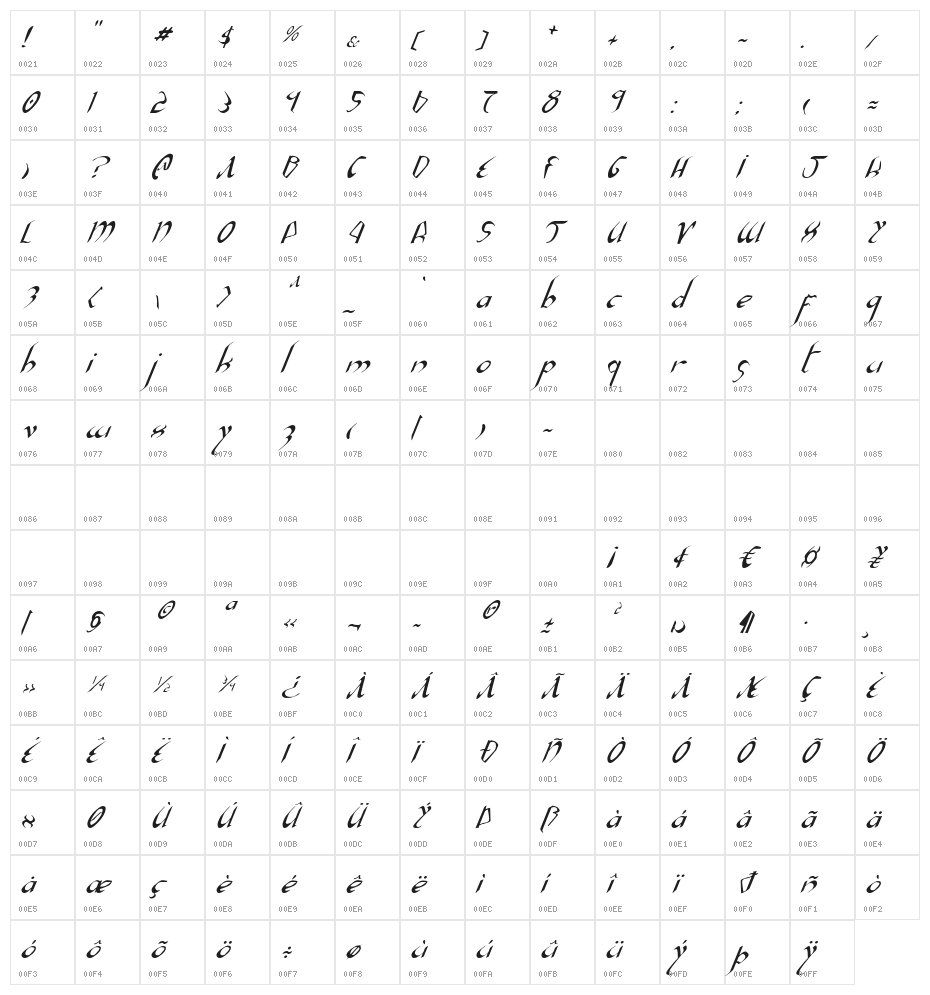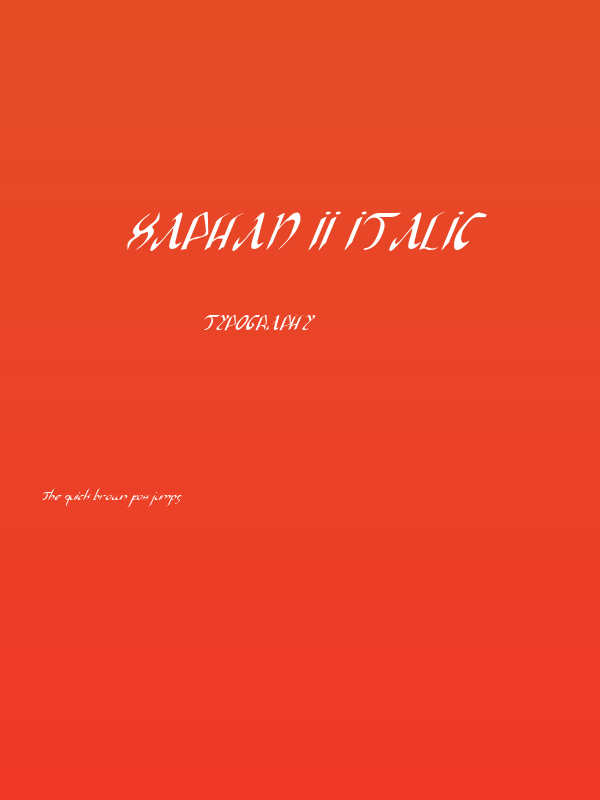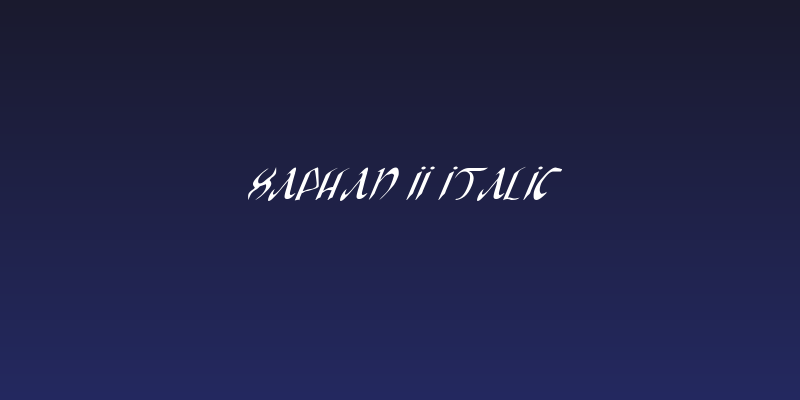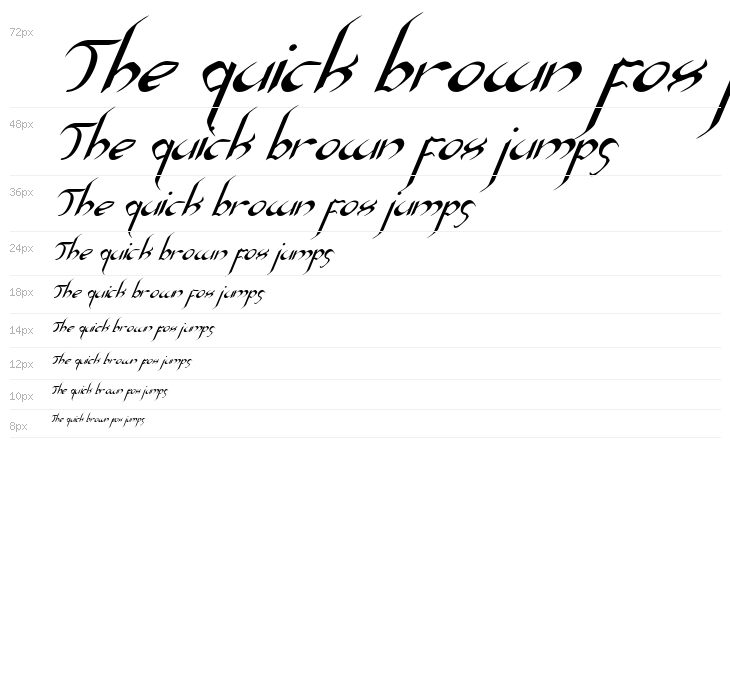
Xaphan II Italic Font
Xaphan II Italic Description
This font exhibits a dynamic and expressive style, characterized by its sharp, angular strokes and fluid, cursive-like forms. The letters have a distinct slant, enhancing the italic nature of the design. The uppercase characters are bold and commanding, with unique flourishes that add a sense of movement and energy. The lowercase letters maintain a consistent flow, complementing the uppercase with their elegant curves. Numbers and special characters follow the same stylistic cues, ensuring a cohesive appearance across all elements. The overall impression is one of sophistication and artistic flair, making it suitable for projects that require a touch of drama and elegance.